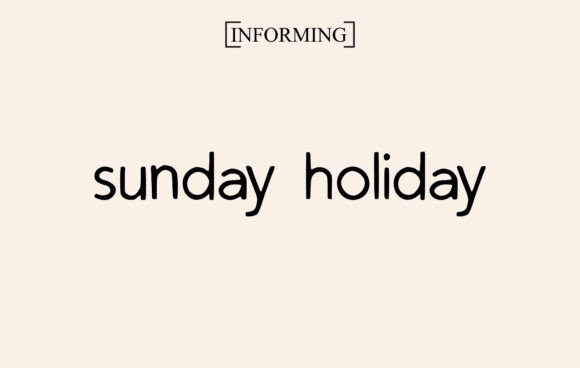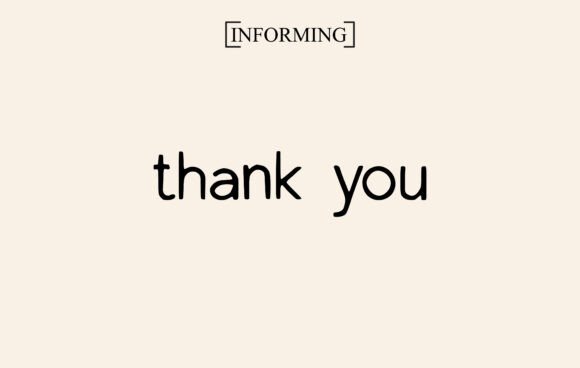
Introduction to Hallelujah Type Font
Playful yet legible, Hallelujah Type delivers a handwritten sans style full of optimism.
Its rounded strokes and casual flair are perfect for childrenโs books, Sunday school materials, journals, and everyday creative use .
Key Features of Hallelujah Type Font